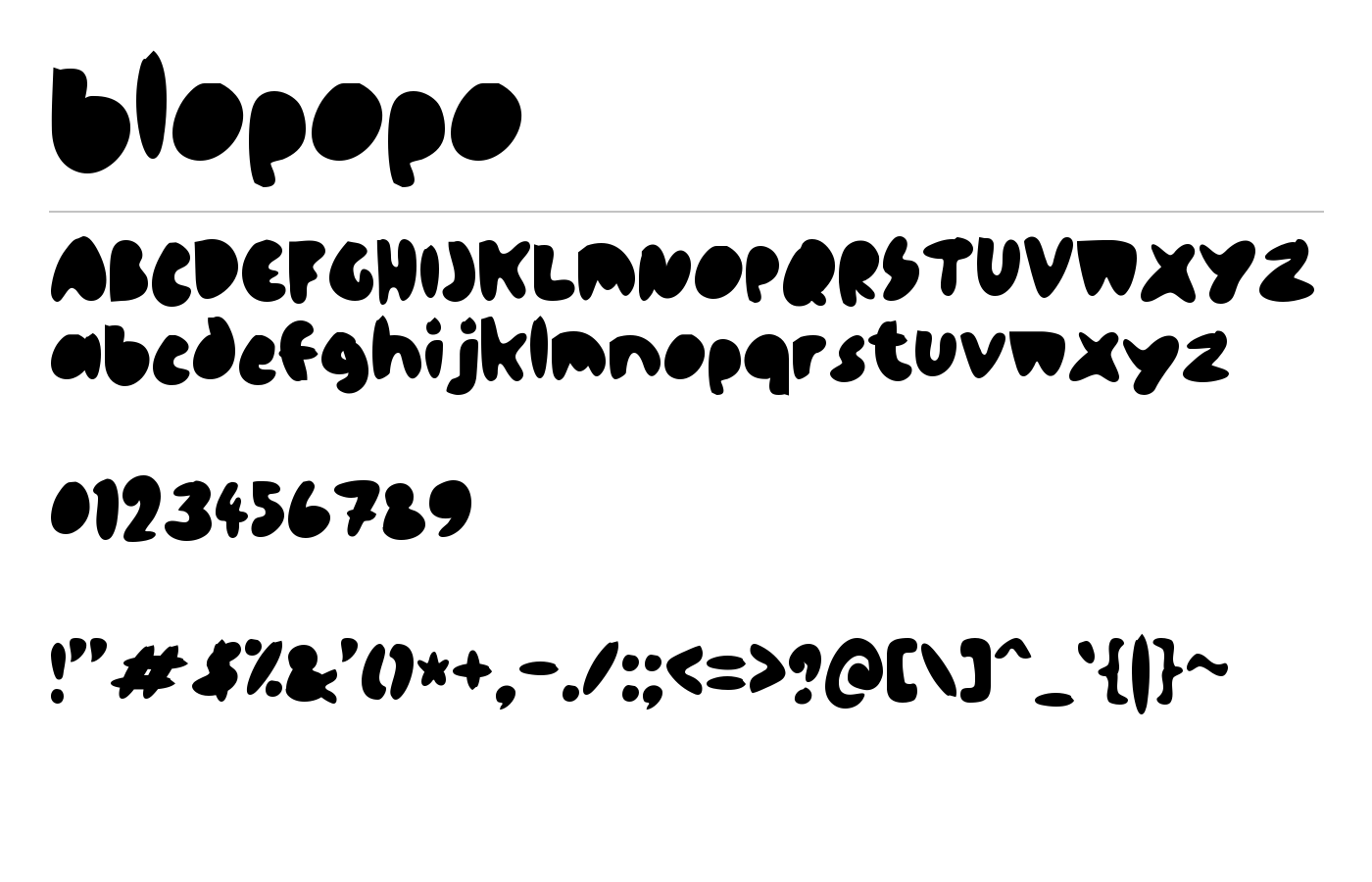
Blopopo is a bold, playful sans serif font with a bubbly and organic feel, characterized by thick, rounded strokes and irregular shapes that give it a casual, hand-drawn personality. This font works great for fun, creative projects such as children’s books, posters, or branding that wants to convey friendliness and uniqueness, making it less suited for formal or highly legible body text. Its lively style makes any design feel approachable and full of character.
blopopo Font
About blopopo Font